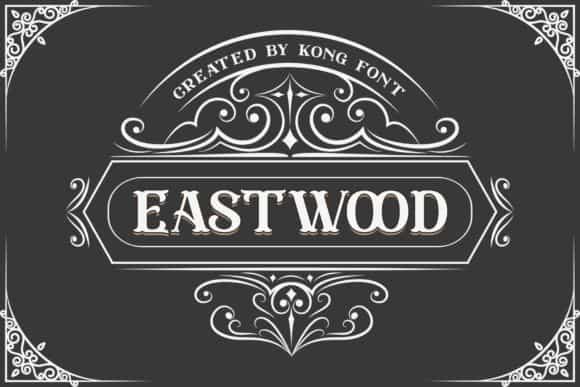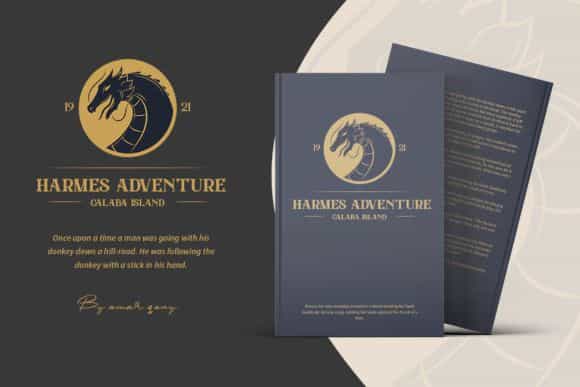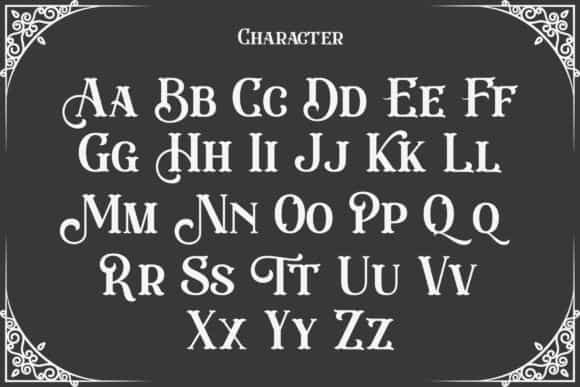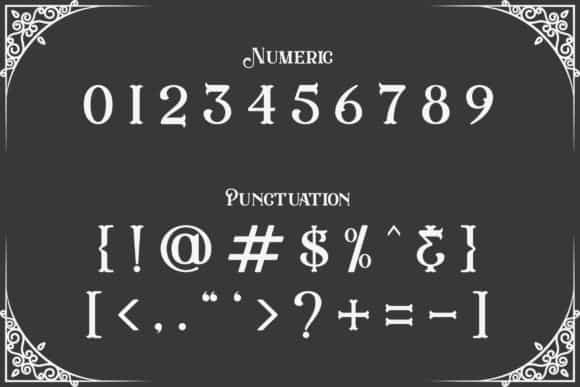
Eastwood – A Western display font. Ideal for design needs with a hint of classic western touch, especially on logos, and other various formal forms such as invitations, labels, logos, magazines, books, greeting/wedding cards, packaging, fashion & make up, stationery, novels, labels and any type of advertising purpose.